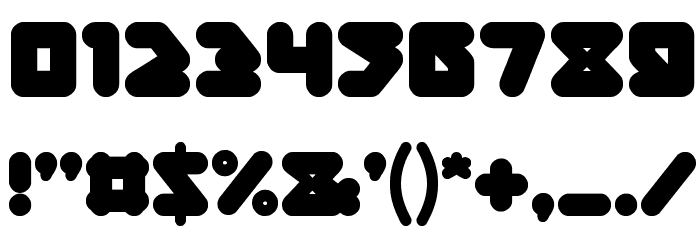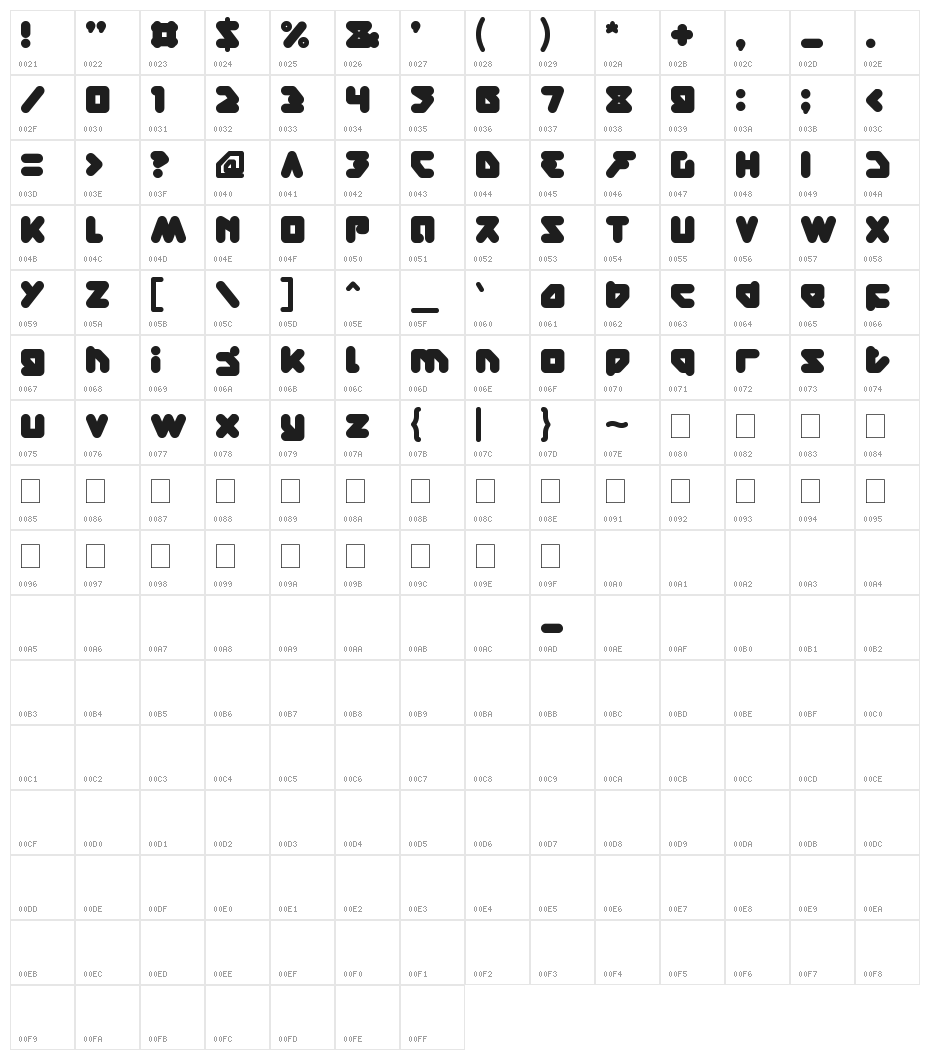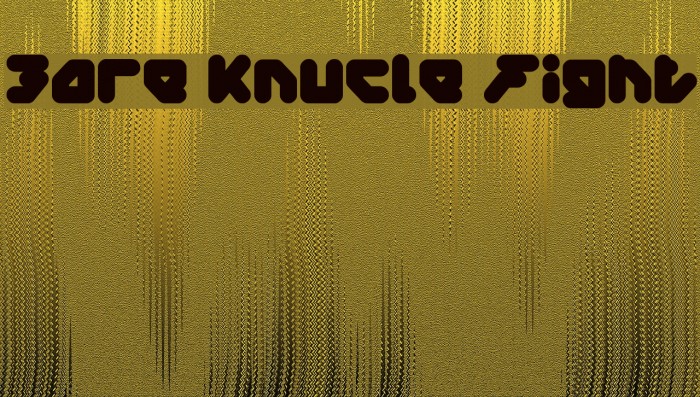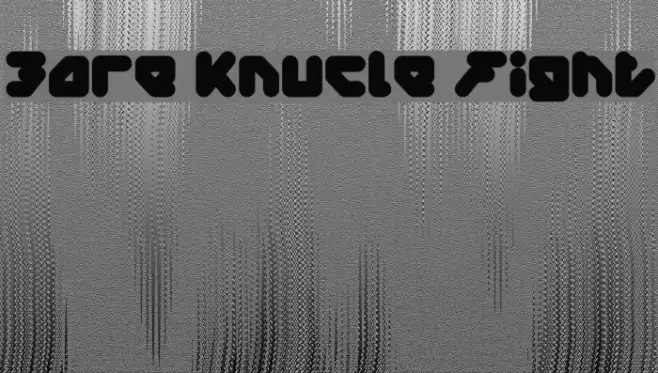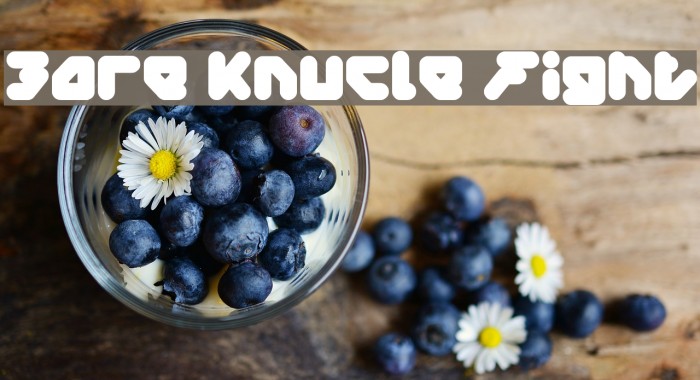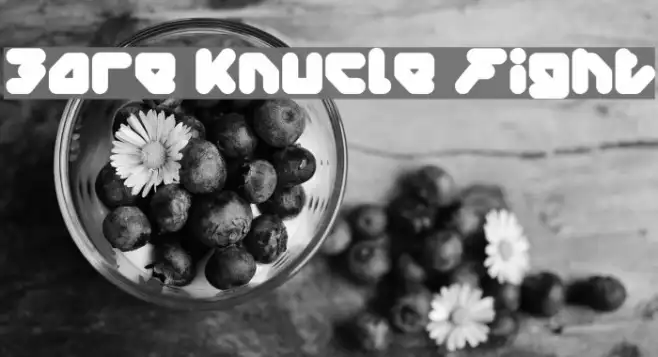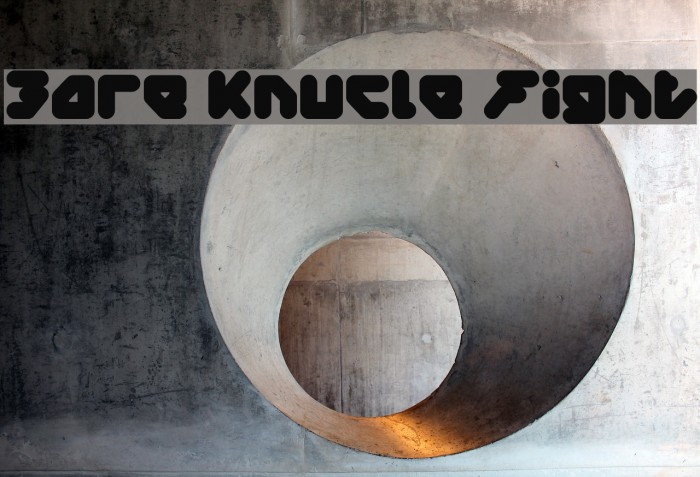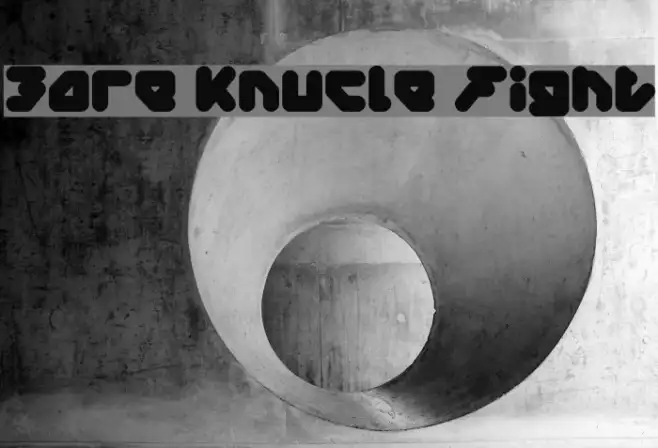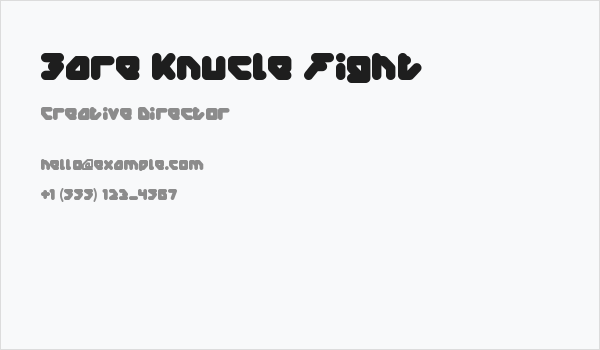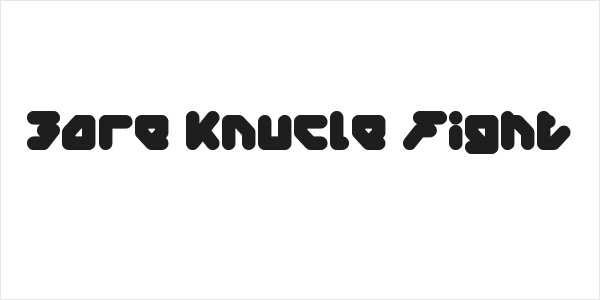
Bare Knucle Fight Font
Bare Knucle Fight Description
This font features bold, rounded characters with a distinctly modern and playful appearance. The letters are heavily weighted, giving them a strong presence on the page. The rounded edges and thick strokes create a sense of approachability and friendliness, while the geometric shapes add a contemporary touch. The font maintains consistent thickness throughout, ensuring readability even at smaller sizes. Its unique style makes it suitable for eye-catching designs that require a bold statement.
| Proposed Projects | Ideal for branding, posters, headlines, and any design that needs a strong, modern impact. |